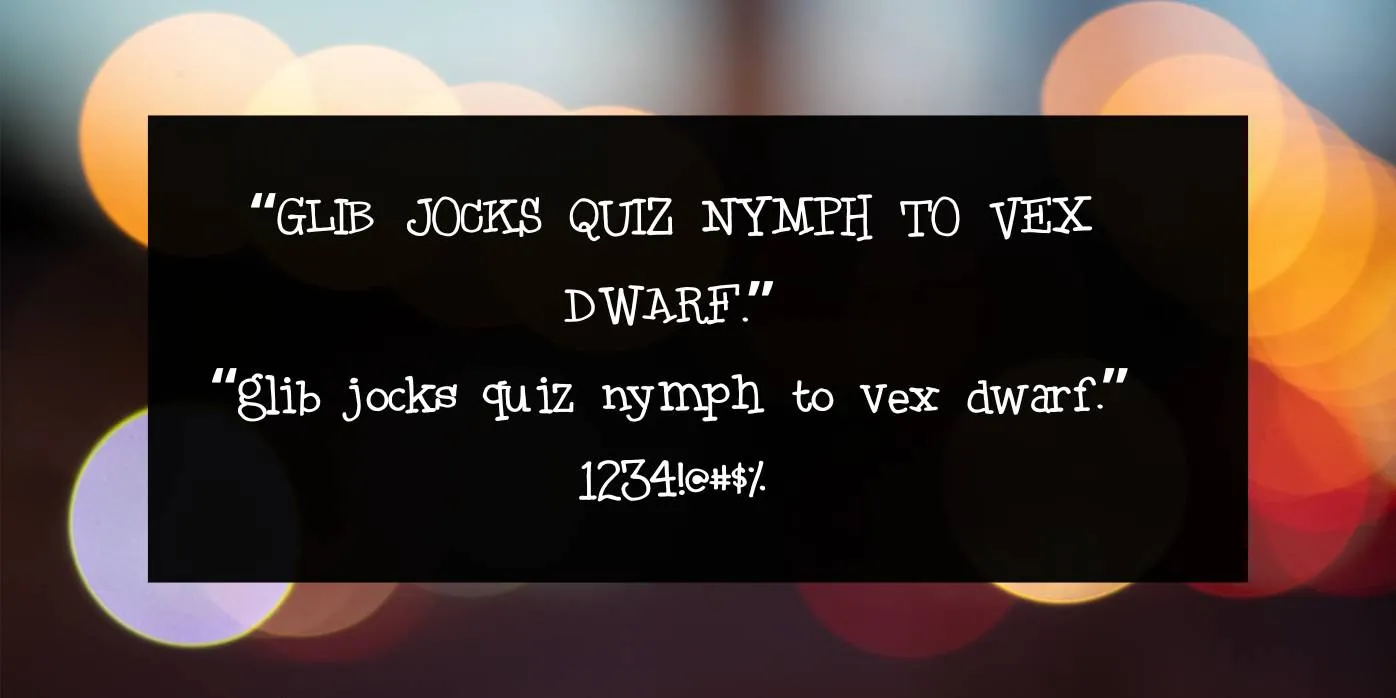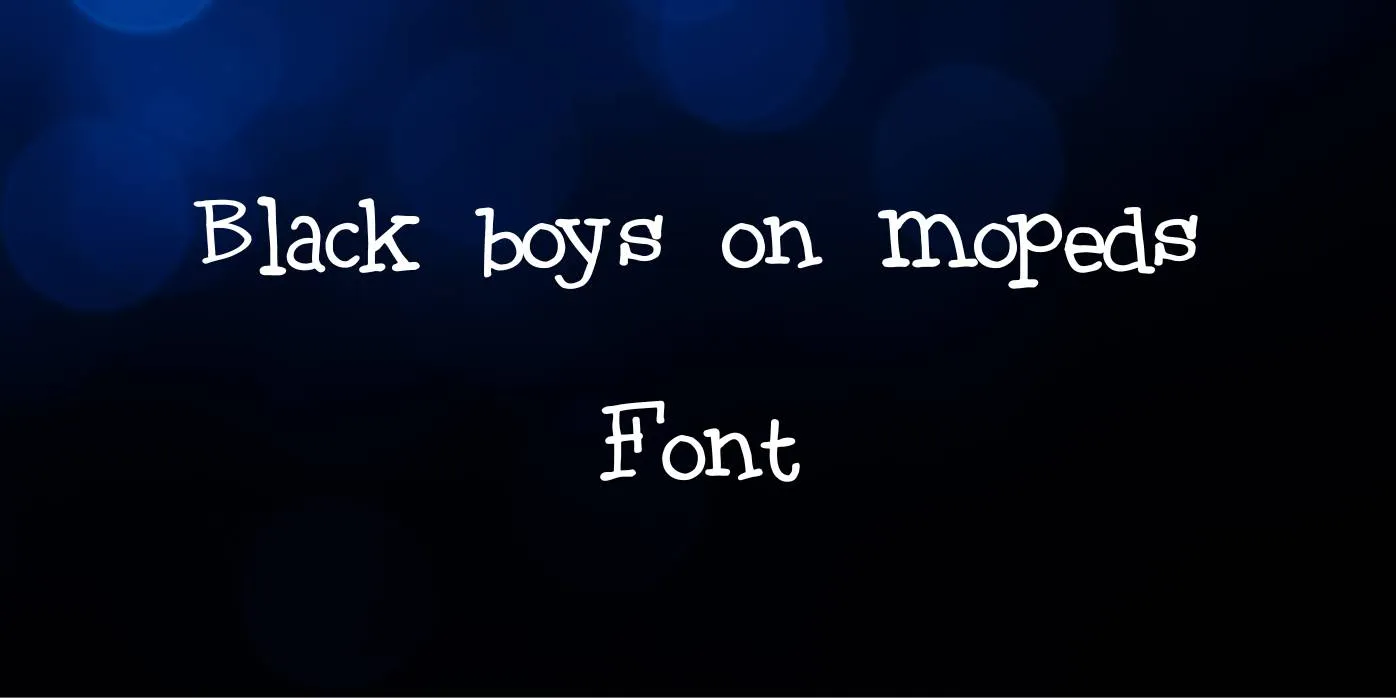
Black Boys on Mopeds Font
Here we discuss a very interesting font with so many features Black Boys on Mopeds Font. It is a very amazing fancy font with a cartoon touch. You can make both types of projects personal and commercial using this font after taking permission from the owner to make commercial projects. It contains 90 characters, 95 glyphs, and 1000 units per Em.
The pattern nature of this font is regular and its posture is upright. Usage Many interesting projects can be made by using this font. It has a variety of characters, symbols, numbers, small letters, capital letters, and special characters and can be used for different projects. Once you use this font in your project you want to use it again and again.
It is a very loveable font and you can use it to make different headlines. It can be used to make stickers and labels related to fun, comics, or cartoons. Comic stories books and cartoon magazine covers can also be made by using this font. You can make different types of logos and can do modern-type advertisements by using them.
For making blogs, cards, and all items related to kids can be made by using it. It can be used to print on Mugs and other fabrics like pillows to give an attractive look. You can use it for print and digital media. It is also good for branding, animating movies, and making posters and banners related to any event.
FAQs! Is Black Boys on Mopeds a Fancy Font? Yes, it is a fancy modern font that can also be used for cartoons and other comic items. What file format is supported by Black Boys on Mopeds font?
You can use this font to make so many projects. Once you use this font in your project you want to use it again and again. It can be used for making titles, headings, comic story covers, and much more.